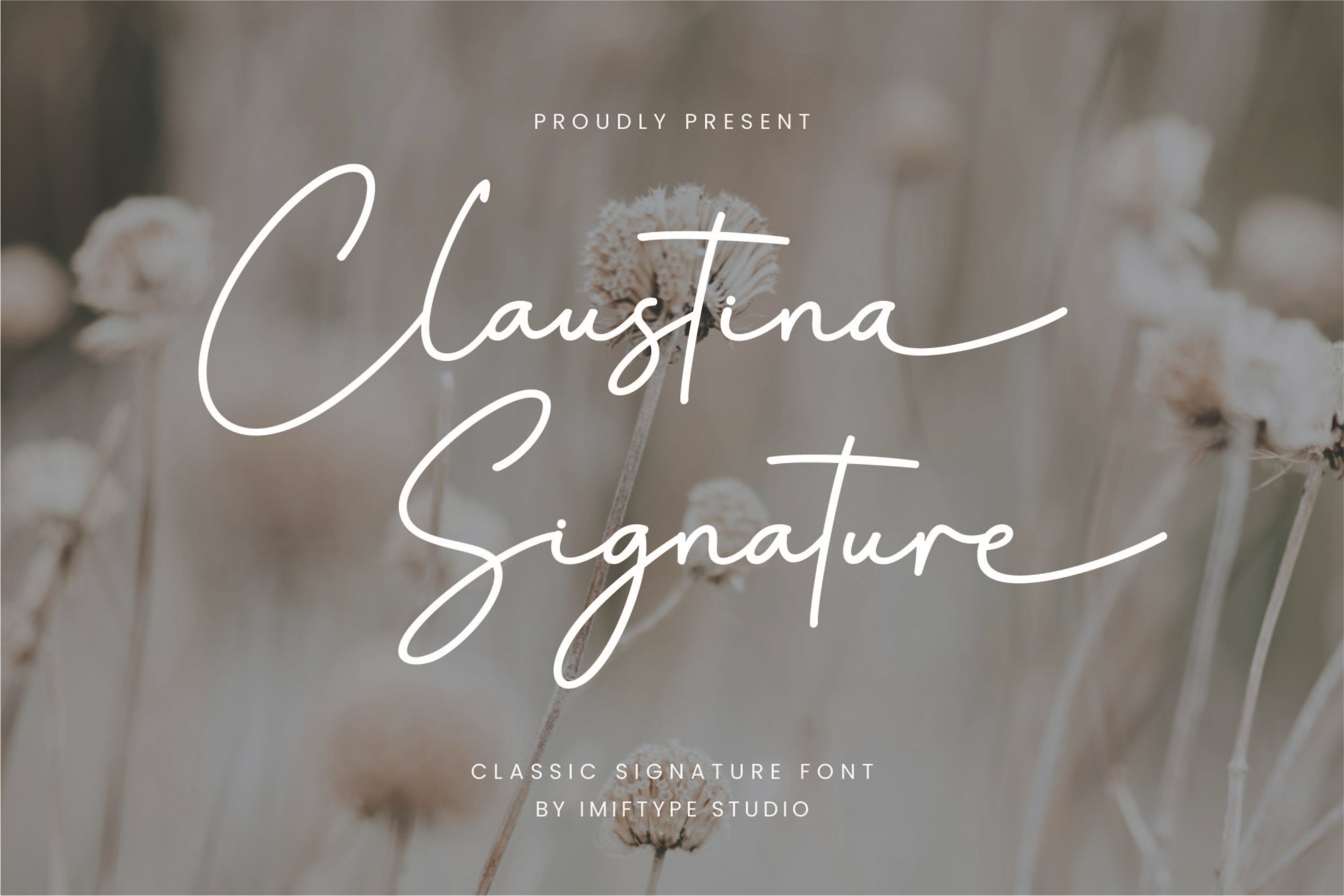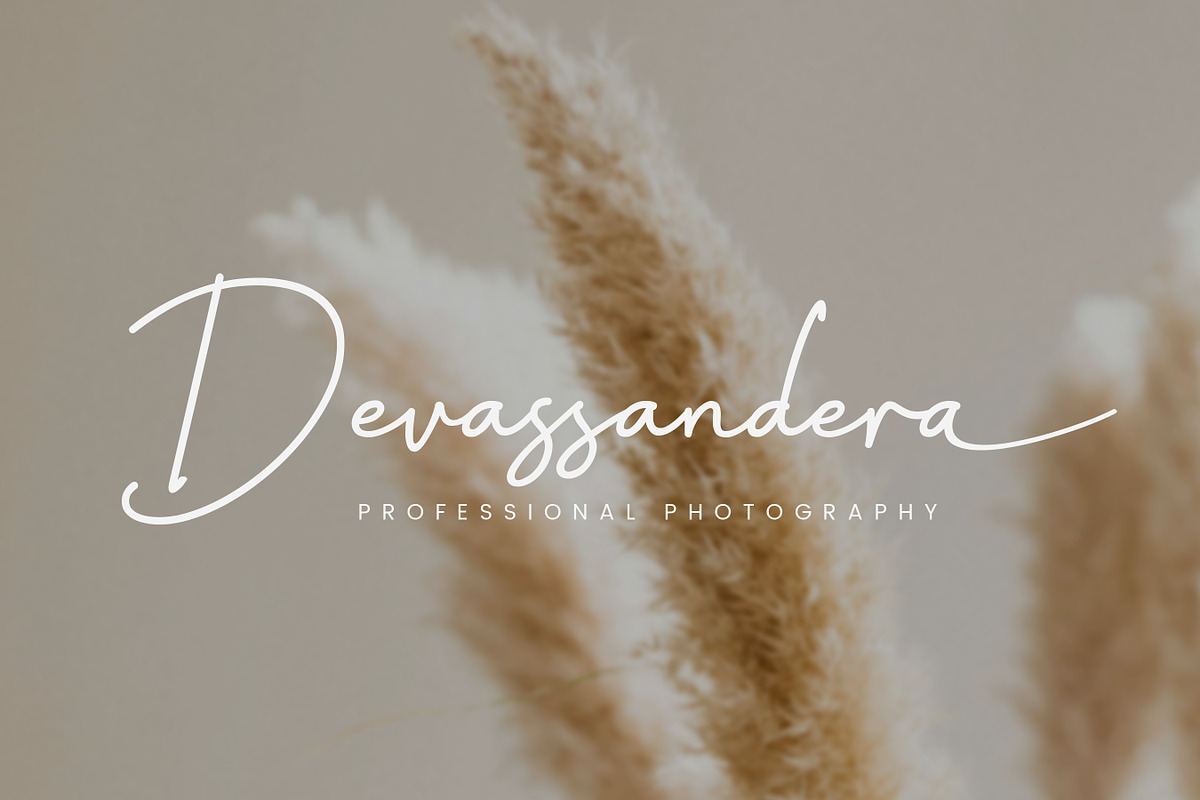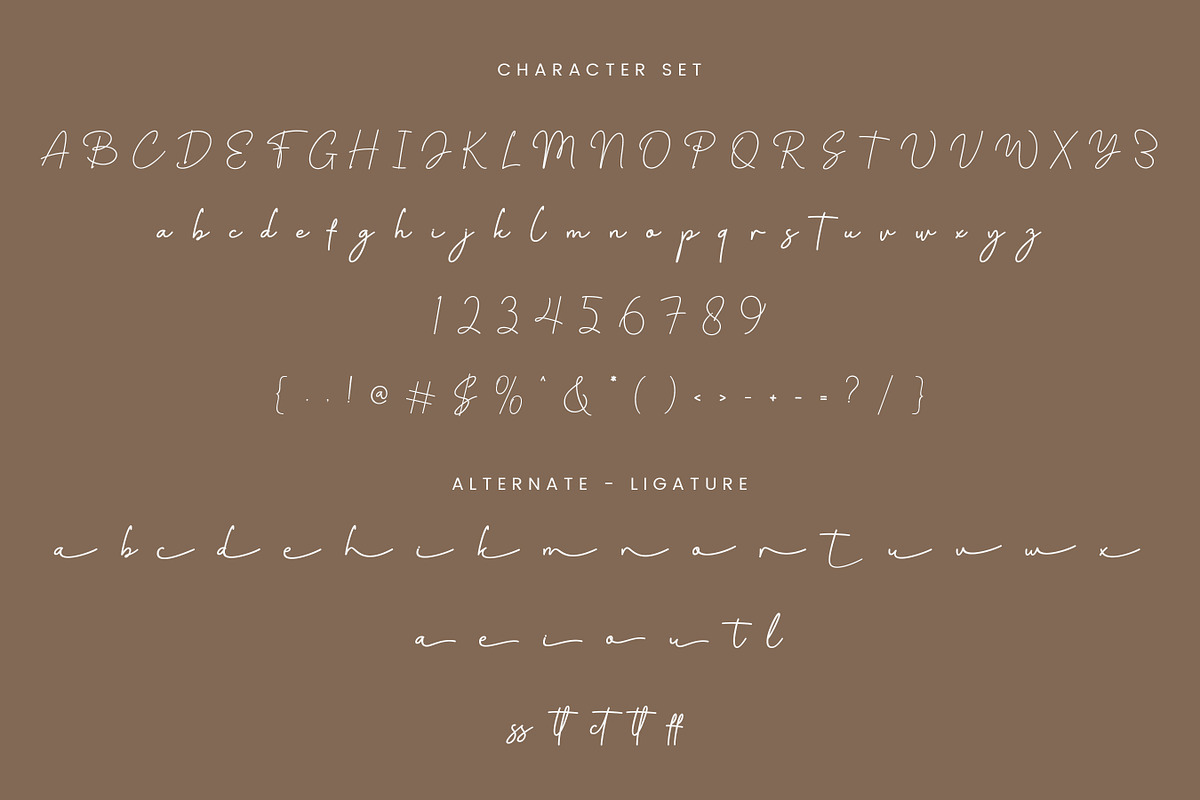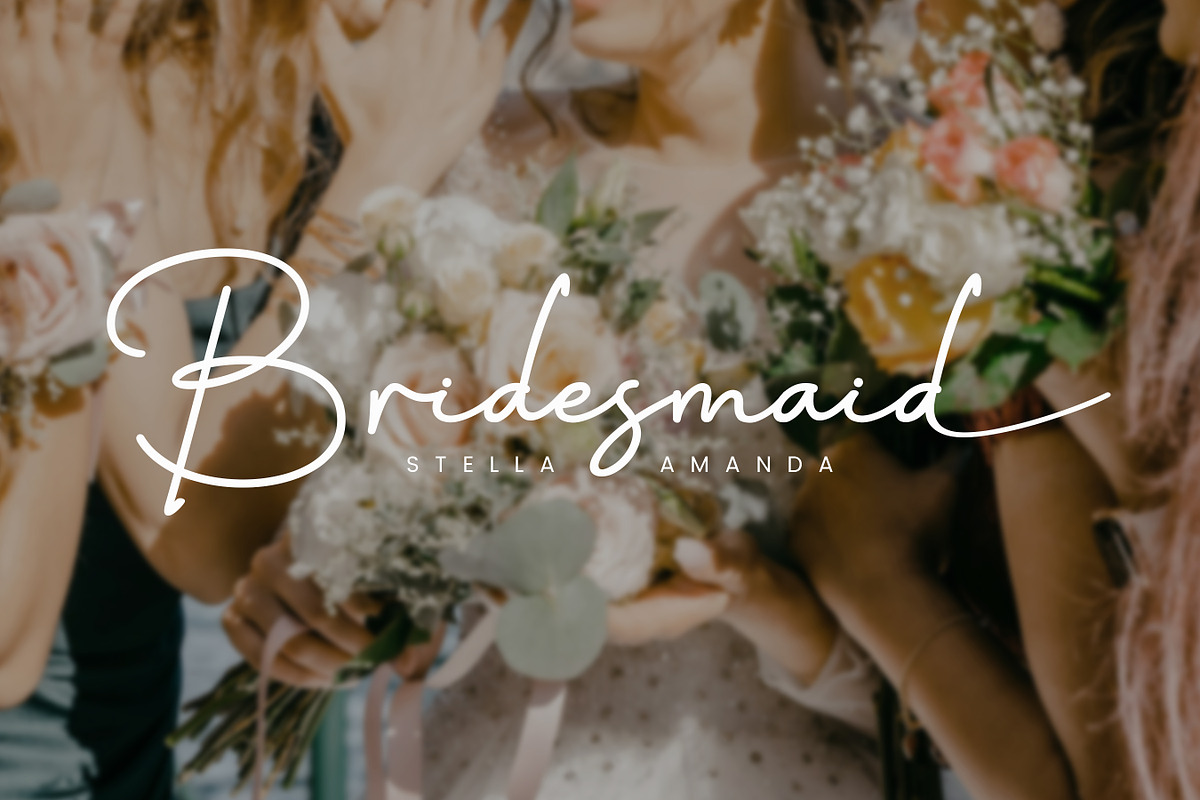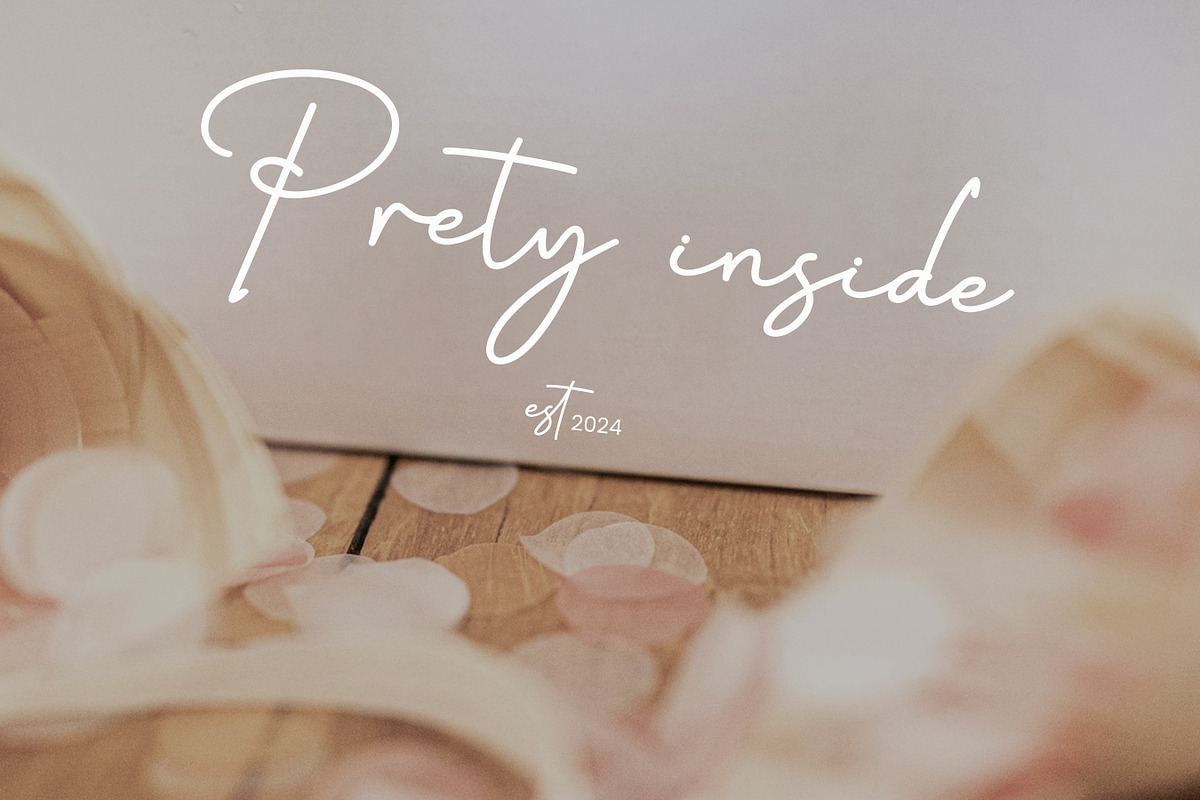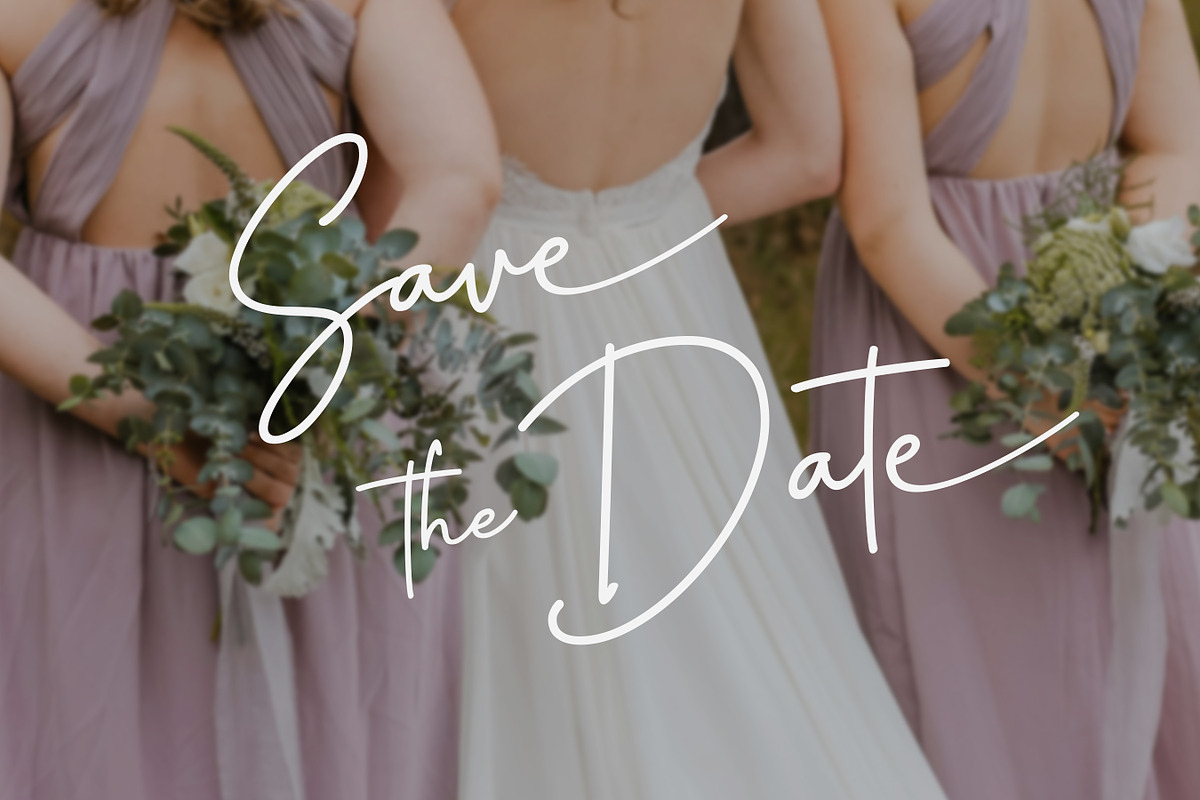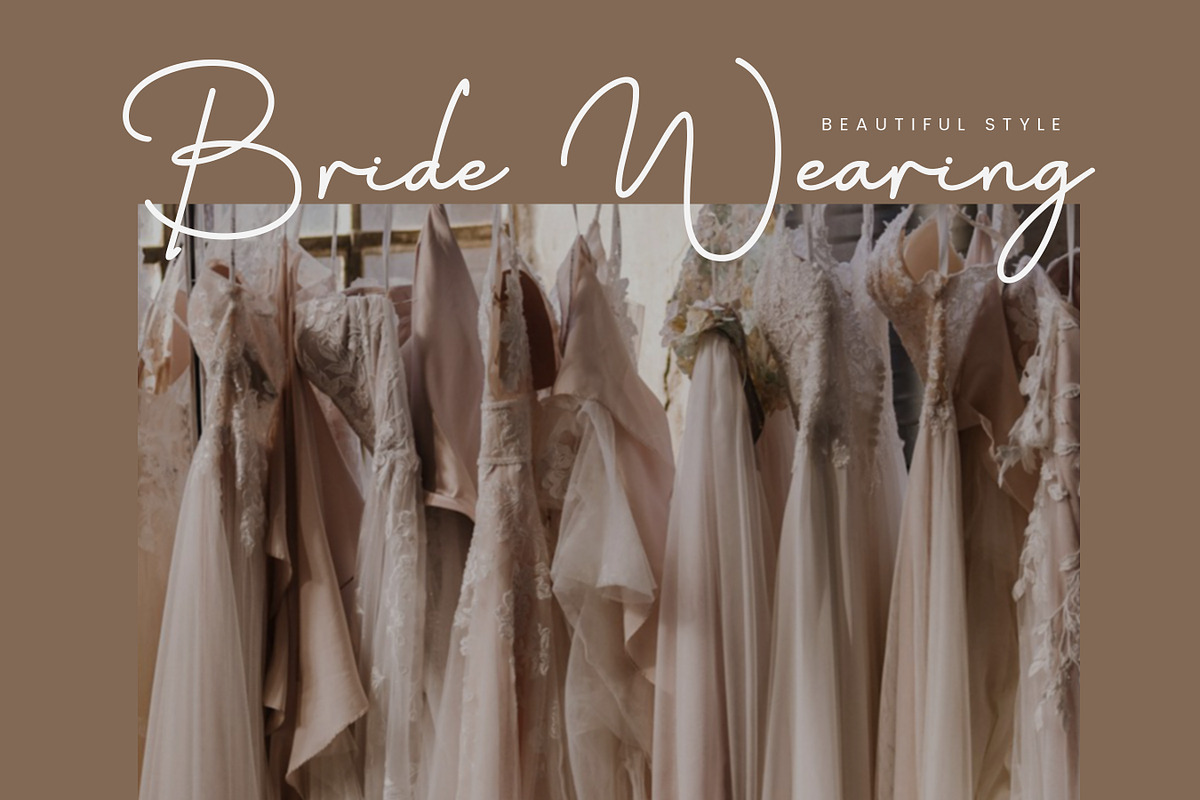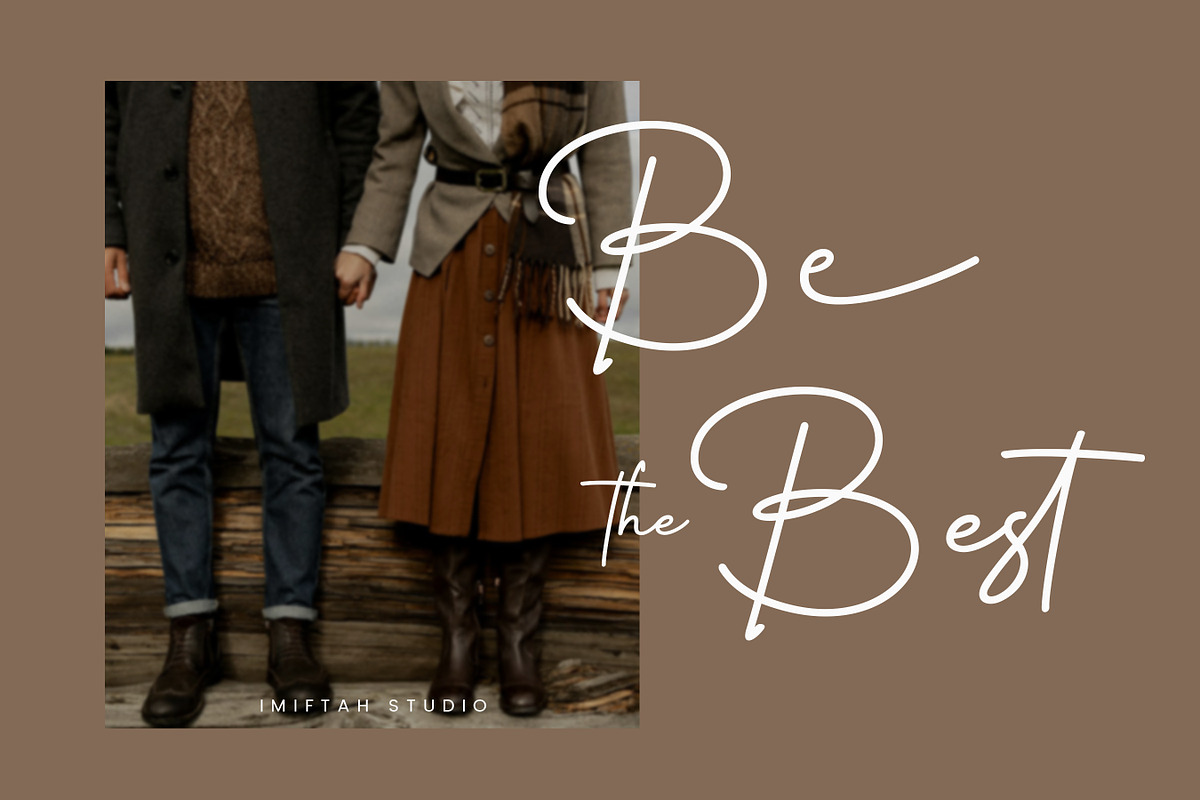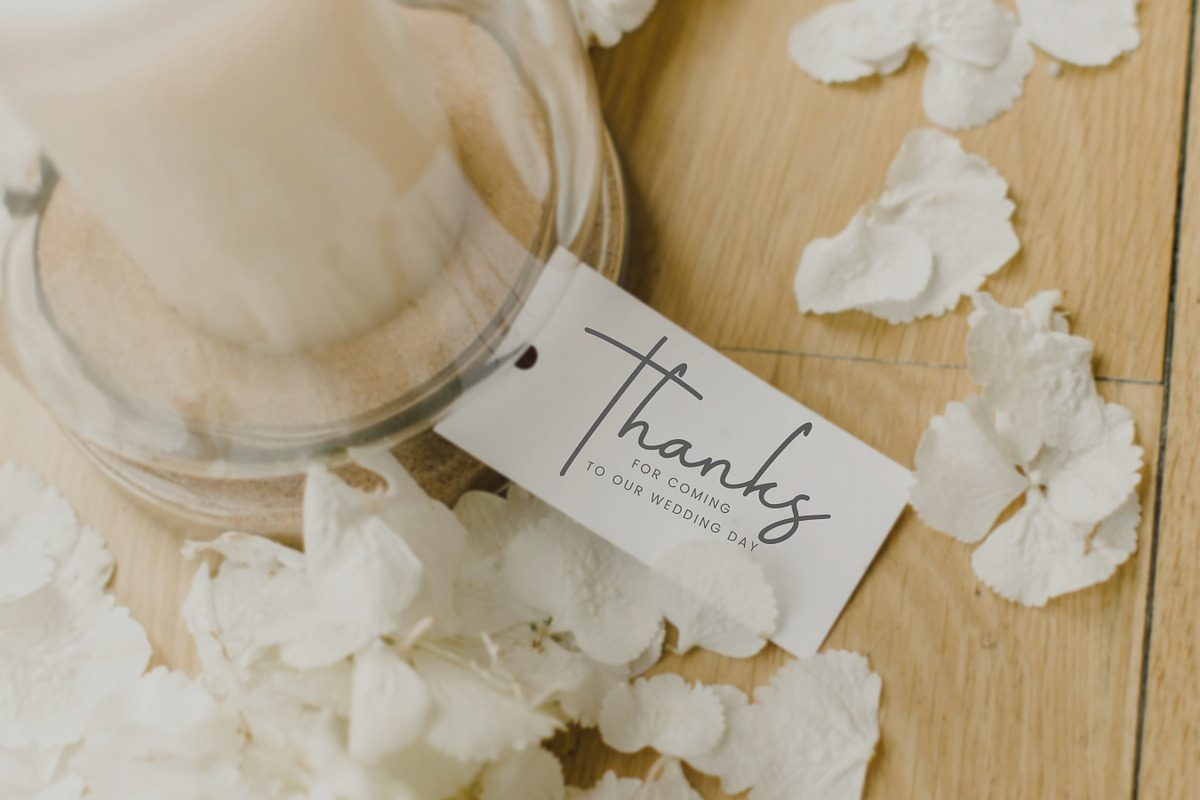
Claustina Signature Font
Claustina Signature Font by Imiftype Studio is a refined and versatile typeface, perfect for elevating any creative project. Whether you're working on logos, branding, home decor designs, product packaging, or creating quotes, posters, and greeting cards, Claustina adds a touch of luxury and sophistication. Its graceful script is ideal for projects that demand an elegant and polished aesthetic.
- Ligatures & Alternates with Swashes
- Uppercase and Lowercase Letters
- Accents (Multilingual Support)
- Stylistic Sets for Ligatures and Alternate Styles
Why Choose Claustina? Claustina is designed to make your projects stand out with a unique luxury script. Its flexibility and range of features allow you to create stunning designs effortlessly, making it the perfect choice for any high-end project.